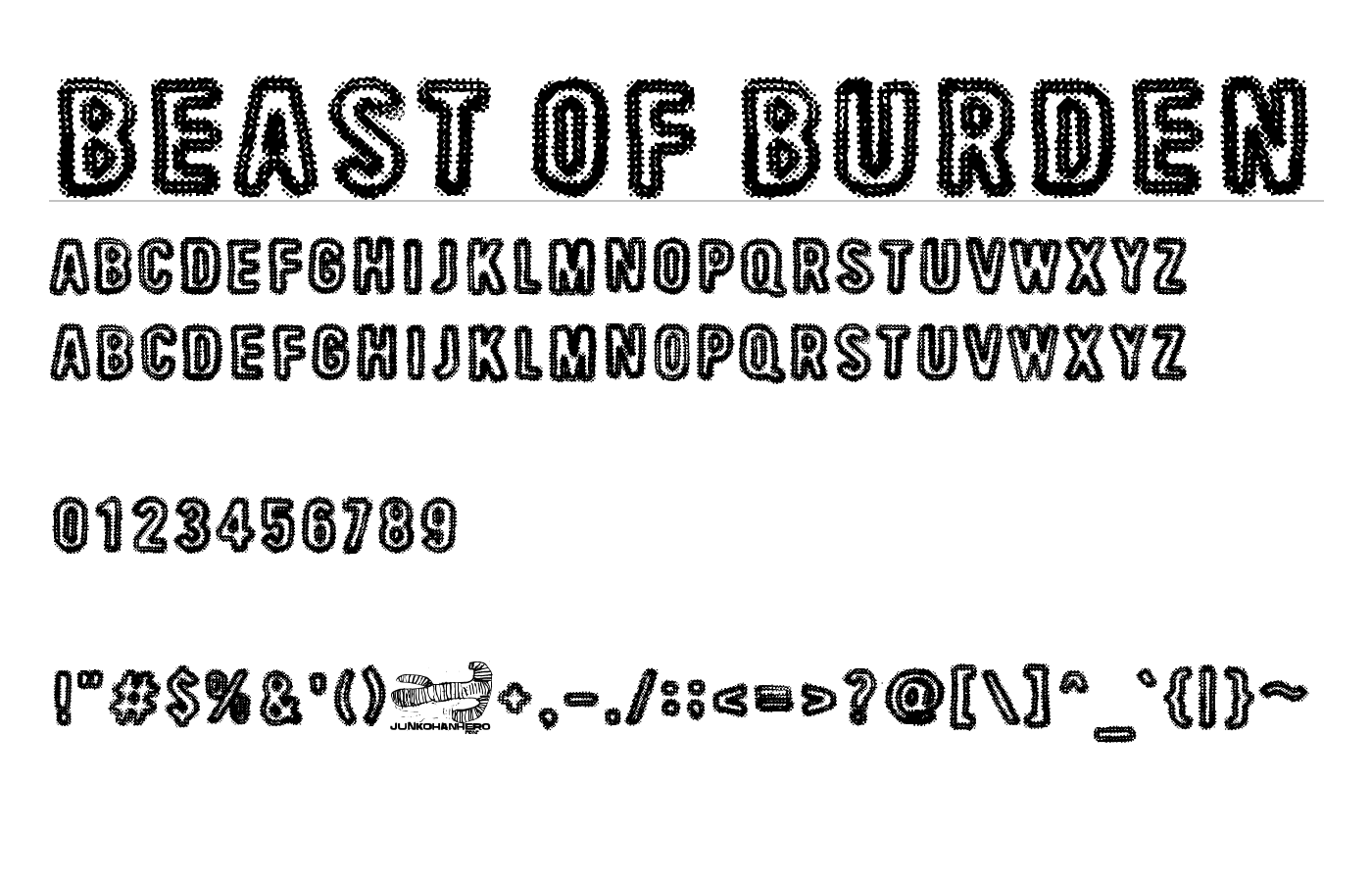
Beast Of Burden is a bold, playful sans serif font with a rough, textured outline that gives it a handcrafted, vintage feel. Its tall, slightly condensed letterforms with irregular edges create a strong, energetic character ideal for eye-catching headlines, logos, or posters that want to convey a rugged, indie vibe. This font works well in creative projects where you want to add personality and a bit of nostalgic charm.
Beast Of Burden Font